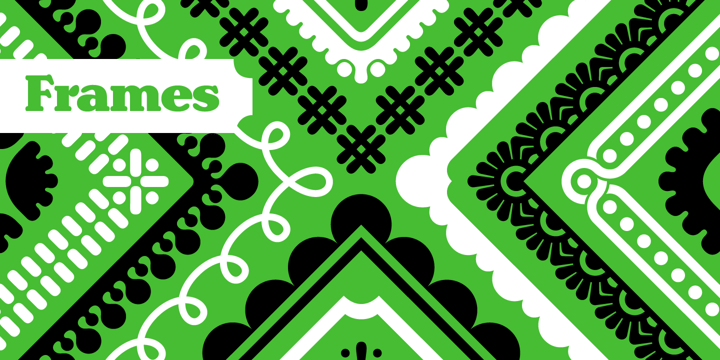
Henriette™
by Typejockeys
The Henriette Font Family was designed by Michael Hochleitner and published by Typejockeys. Henriette contains 31 styles and family package options.
The redefinition of a classic In the 1920s the Viennese government decided to standardize the street signs across the city. A typeface was especially constructed for the purpose. It was available in a Heavy and a Bold Condensed version, to support short street names as well as longer ones. As the years went by, the typeface was adopted and redrawn by several enamel factories. These adaptations lead to variations on the design, and to the fact that there isn’t a Viennese street sign font but 16 – in part severely – different versions. Henriette is not a digitization of any of those versions; rather, it is influenced by all of them. The italic versions are completely original and designed to accompany the Roman.